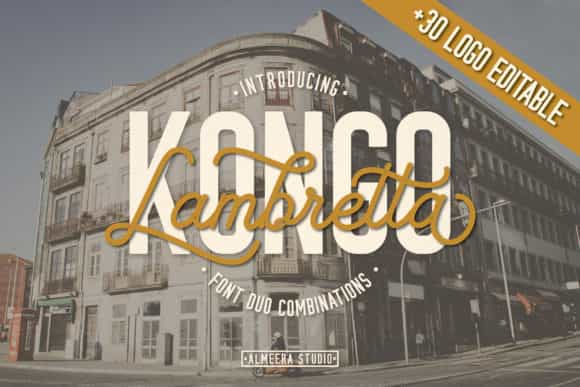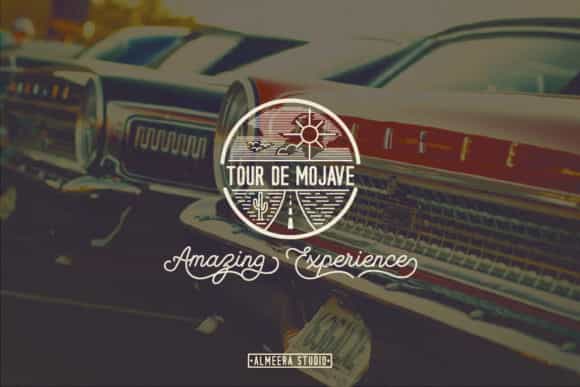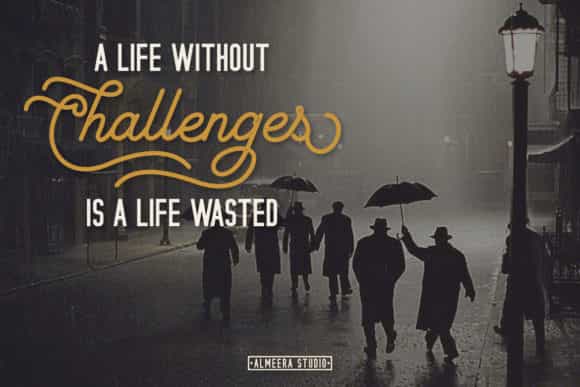
Discover Lambretta Kongo Font Duo, part of the Sans Serif Brush Handwritten collection—a versatile and unique font perfect for adding a personal touch to your projects. Download it for free and enjoy crafting designs with style, from invitations to social media posts. This font is available exclusively for personal use, giving you the freedom to create without limits. Unlock your creativity with Lambretta Kongo Font Duo today!
Introducing Lambretta Kongo Typeface. These two fonts are available in two styles; script and sans, and they have regular en stamped versions. They can be mixed up with each other, but they are also great on their own.